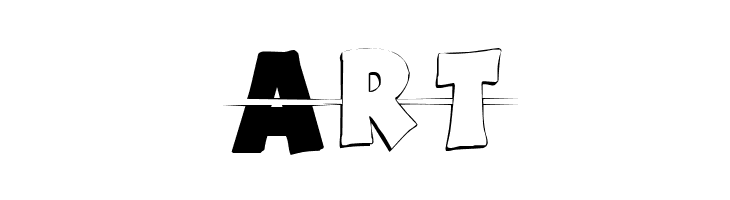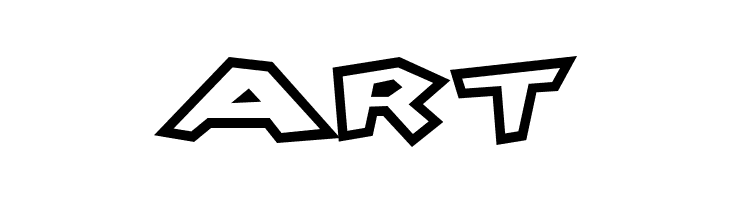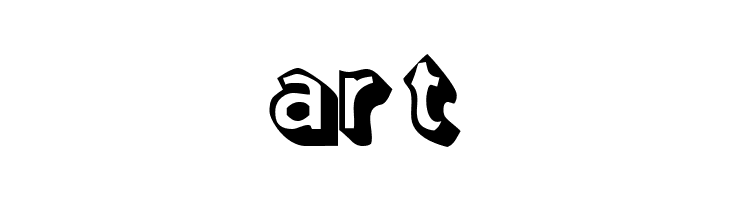
A bold, outlined font with a playful, cartoonish style.
A bold, playful font with a three-dimensional, cartoonish style.
A playful, bold font with a whimsical, cartoon-like style and rounded edges.
A bold, playful font with a 3D shadow effect, perfect for fun and engaging designs.